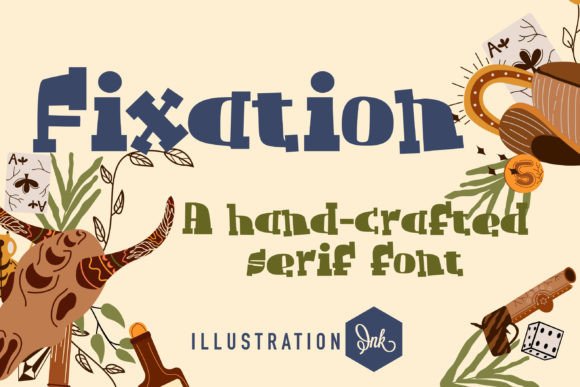
Step into a world of timeless beauty and sophistication with Fixation Font - a serif masterpiece that will captivate your designs and leave a lasting impression. Illustration Ink, the visionary behind this masterpiece, has meticulously crafted each letterform to exude elegance, boldness, and an artistic flair that is truly unmatched.
Immerse yourself in the intricate details of Fixation Font, where every stroke and curve tells a story. Its grand and sophisticated presence is sure to make your headings, titles, and design elements shine, demanding attention and admiration. With its undeniable beauty and timeless appeal, Fixation Font elevates your designs to new heights, leaving an unforgettable mark on your audience.
Unleash your creativity and explore the endless possibilities that await with Fixation Font. Whether you're designing invitations, branding materials, social media graphics, or any other creative endeavor, Fixation Font is your perfect companion. Its versatility knows no bounds, adapting seamlessly to various styles and themes, adding a touch of refinement and elegance wherever it's used.
Don't settle for ordinary fonts that blend in the crowd. Embrace the captivating allure of Fixation Font and watch your designs come alive with a new sense of purpose and distinction. Each letterform is a work of art, inviting your audience on a journey of visual delight.
Experience the magic of Fixation Font today and elevate your designs to the next level. Its beauty and versatility are sure to leave a lasting impression, captivating your audience and leaving them in awe of your creativity.